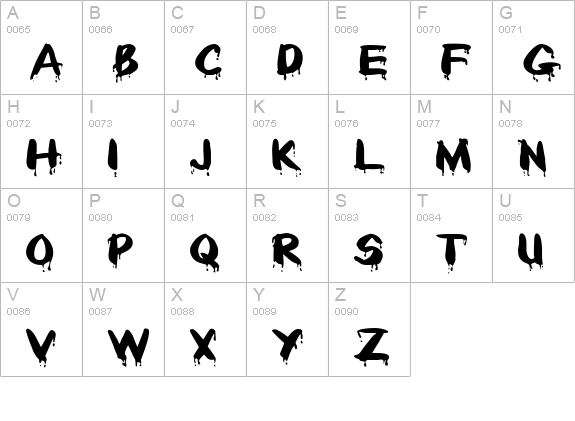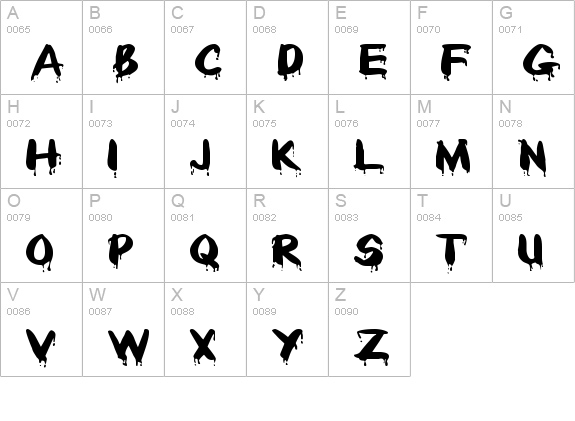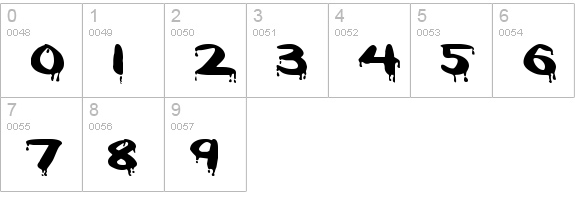
Introducing the captivating and striking Blood Font - a unique typeface that exudes mystery and intrigue. This font is perfect for creating eye-catching Halloween designs, horror movie posters, or any project that requires a touch of the macabre. The Blood Font features dripping letters that appear as if they are oozing with crimson red blood, adding a chilling and dramatic effect to your text. The best part? This hauntingly beautiful Blood Font is available for free download at FontsMarket.com. Whether you're a graphic designer, artist, or simply looking to add a touch of darkness to your projects, this font is sure to make a statement. Don't miss out on the opportunity to add this spine-tingling font to your collection today!